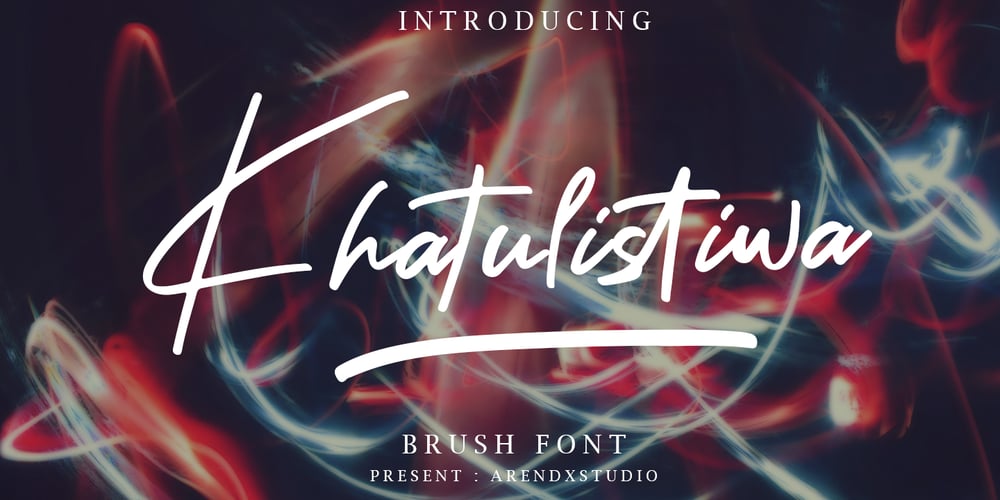
Khatulistiwa Font Family was designed by Asep Rendi and published by Arendxstudio. Khatulistiwa contains 2 styles and family package options. Khatulistiwa is a handwritten font that is very charismatic and with a strong character, that will be very suitable for the various needs of your design projects. Features : • Character Set A-Z • Numerals & Punctuations (OpenType Standard) • Accents (Multilingual characters) • Ligature • Swash